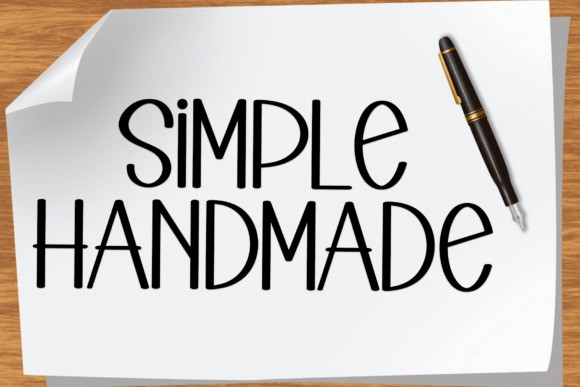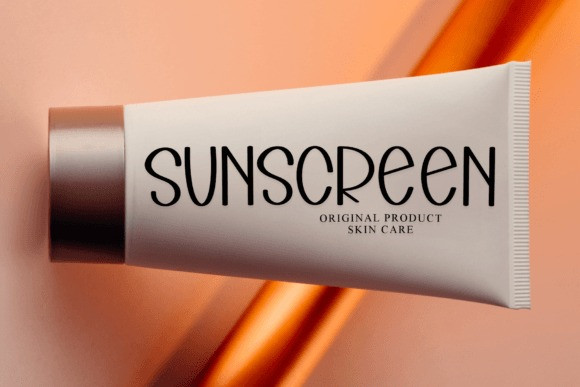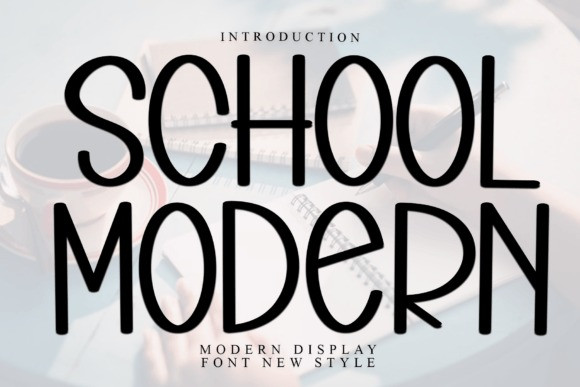
School Modern Display Font
School Modern Display Font is a sweet and friendly handwritten font. Its natural and unique style makes it incredibly fitting to a large pool of designs. The only limit is your imagination!